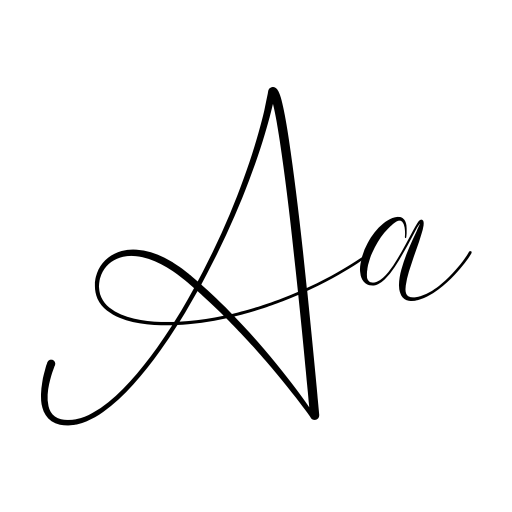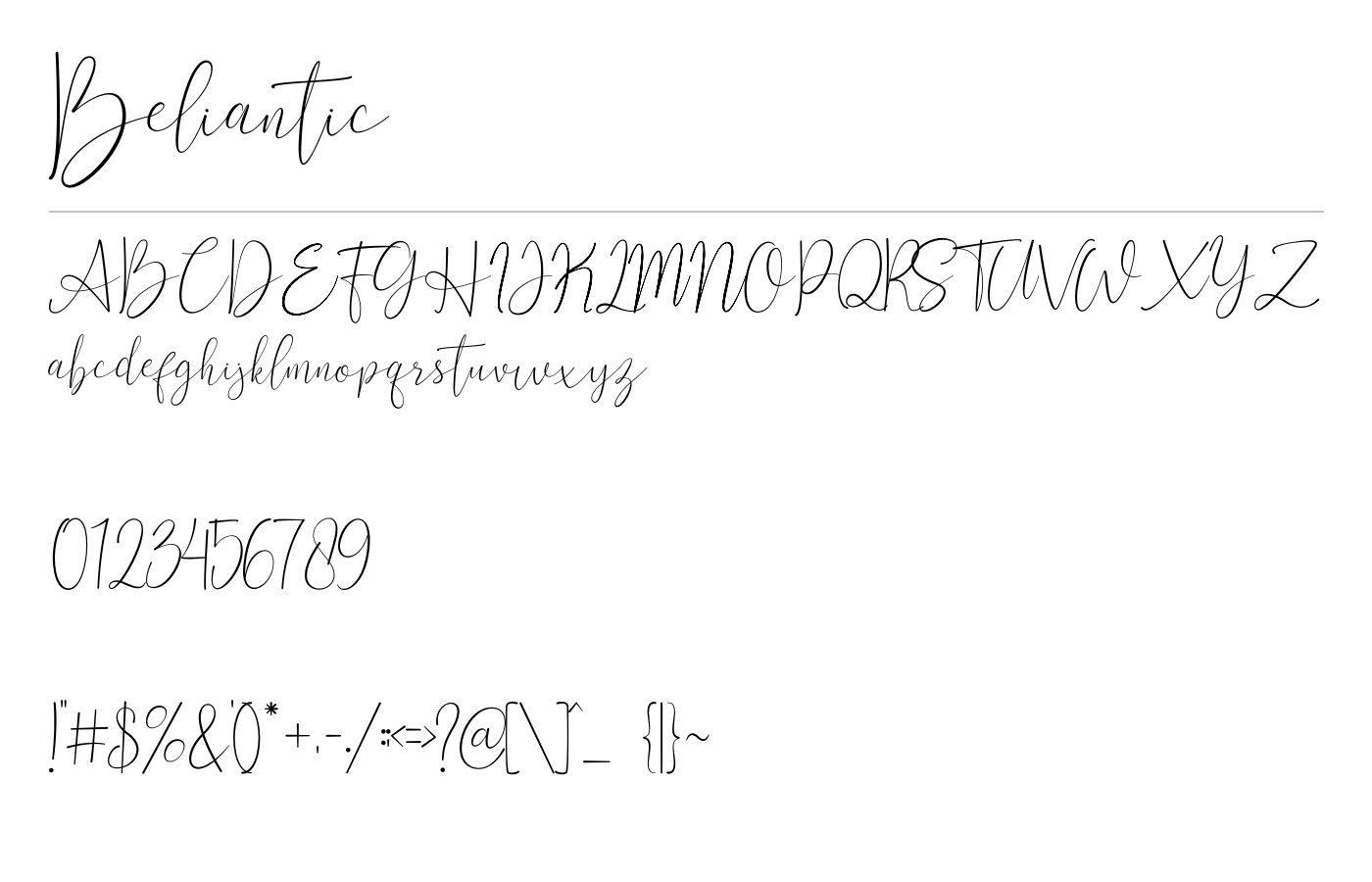
Beliantic is an elegant, thin script font with delicate, flowing letterforms that evoke a handwritten, personal touch. Its slender strokes and graceful curves make it perfect for stylish branding, invitations, and feminine or romantic designs where a refined and modern look is desired. This font shines best in headlines, logos, and decorative uses where its airy, sophisticated personality can stand out.
Beliantic Font
About Beliantic Font
| Designer | Hamber Perdiansyah |